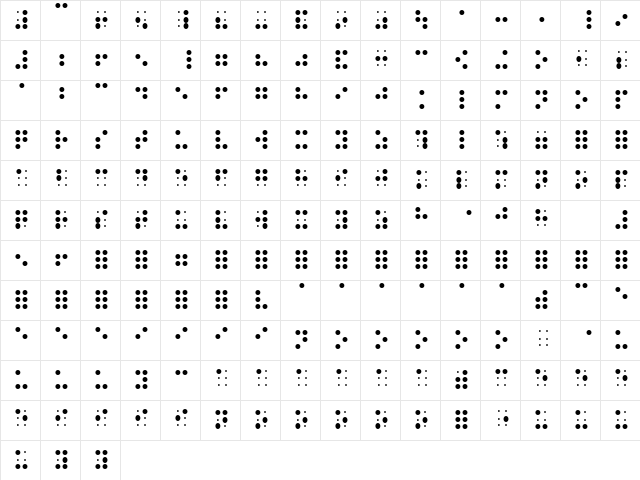
Braille Regular
Design Context for Braille Typeface
Braille is a composed and adaptable typeface that performs quietly and consistently across a wide range of design contexts.